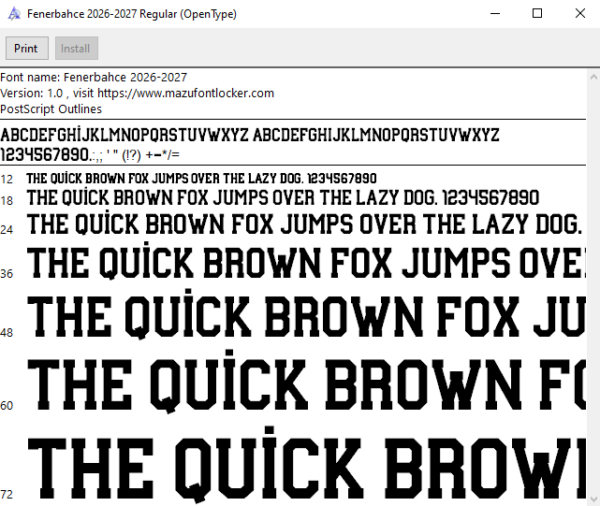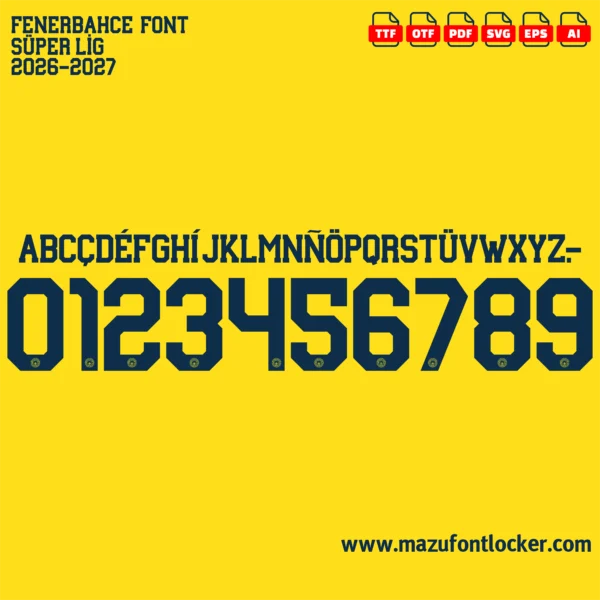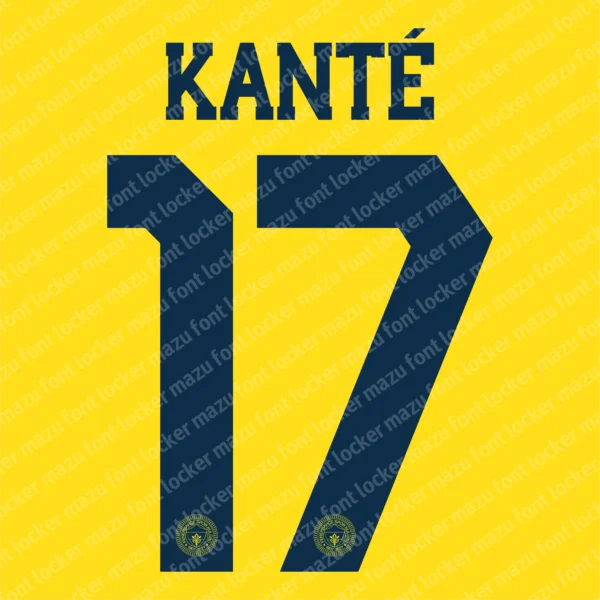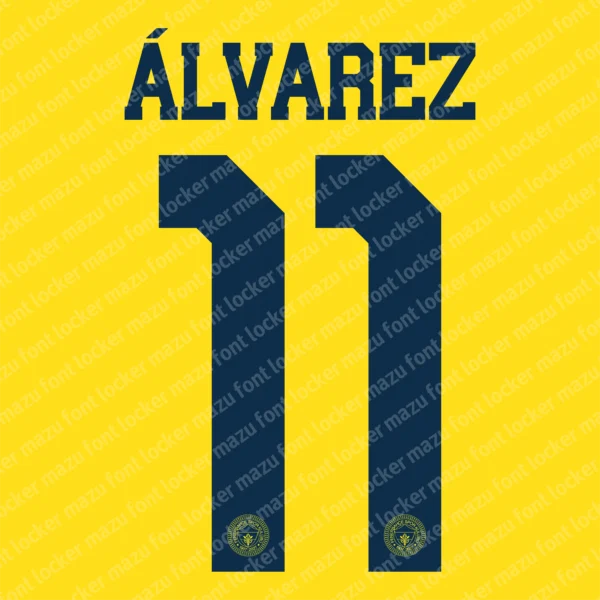
Fenerbahce 2026-2027 Font Vector – Stunning Kadıköy Masterpiece
Fenerbahce 2026-2027 Font Vector – Authentic Yellow Canaries Typeface
The Fenerbahçe 2026-2027 Font Vector is a premium typeface that accurately recreates the official match lettering worn by Fenerbahçe during the 2026-2027 Süper Lig and European campaigns. This high-quality vector font kit captures the bold, modern, and dynamic typography that represents the pride, passion, and winning spirit of the Yellow Canaries.
Designed for professional designers and dedicated Fenerbahçe supporters, the Fenerbahçe 2026-2027 Font Vector delivers perfect authenticity for creating realistic jersey mockups, fan merchandise, matchday posters, social media graphics, and Turkish football content. It pairs beautifully with the club’s iconic yellow and navy colors, reflecting the rich heritage of one of Turkey’s most successful football institutions.
Why Choose Fenerbahce 2026-2027 Font Vector
This font stands out because of its sharp vector precision and strong club identity. Every letter and number is crafted to match the exact style used on the players’ shirts during the 2026-2027 season. Whether you are creating realistic kit templates or exciting Fenerbahçe-themed content, the Fenerbahçe 2026-2027 Font Vector gives your designs that authentic Şükrü Saracoğlu Stadium atmosphere.
The letterforms in the Fenerbahçe 2026-2027 Font Vector are bold, athletic, and highly readable. The strokes feature strong geometric construction with clean edges and balanced proportions, creating a professional appearance that stands out on jerseys while preserving the club’s proud Turkish football heritage.
The numerals feature powerful curves and precise contours, giving them a confident and premium appearance. This vector design ensures flawless scalability and exceptional legibility across both print and digital applications.
• Full uppercase A–Z and numbers 0–9 in authentic Fenerbahçe 2026-2027 style
• Multilingual Latin character support including Turkish characters (Ç, Ğ, İ, Ö, Ş, Ü)
• Includes the exact crest glyph placement used beneath player numbers